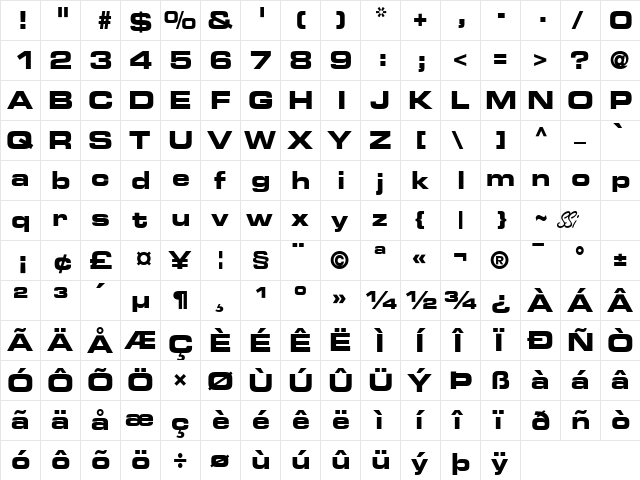
Palindrome Expanded SSi Bold Expanded
Design Context for Palindrome Expanded SSi Typeface
Palindrome Expanded SSi offers clean, dependable letterforms without strong stylistic allegiance, making it a practical choice for designers who need flexibility. The heavy weight commands attention and anchors typographic hierarchies.